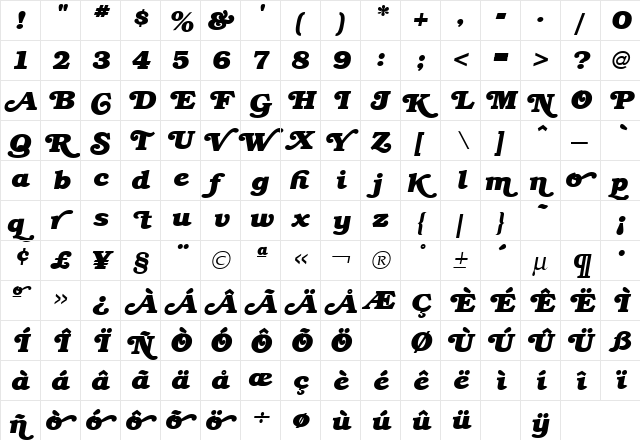
Bookman Bold Swash Bold Italic
Design Context for Bookman Bold Swash Typeface
Bookman Bold Swash brings a calligraphic fluidity to the page — its connecting strokes and expressive curves give it an unmistakably human quality. Its bold stroke weight gives it real presence on the page.
Font Pairing: Combine Bookman Bold Swash with a simple geometric sans for maximum contrast — the tension between flowing curves and clean structure is a classic typographic pairing.
Pro Tip: Use Bookman Bold Swash for short runs of text — names, titles, or taglines. Extended body copy in script faces tires the eye quickly.